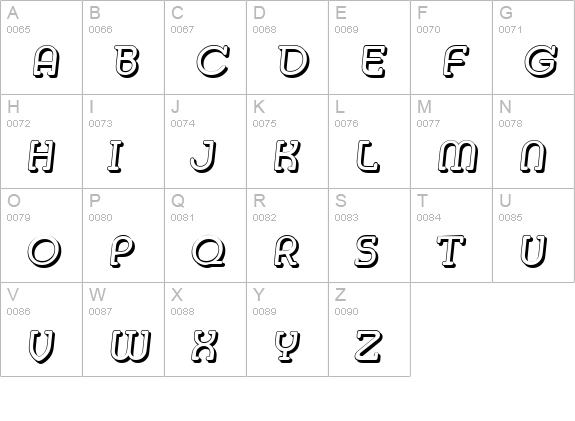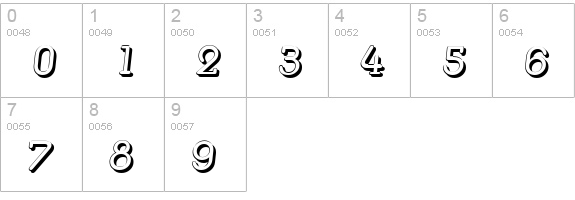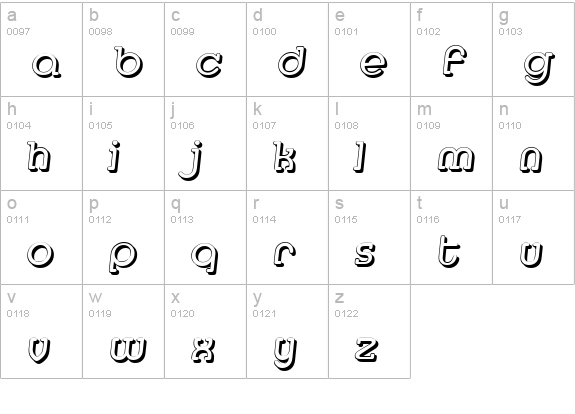
MexicoShadow-Italic Font Details
MexicoShadow-Italic is a distinctive, italic variant in the MexicoShadow typeface family \xE2\x80\x94 well suited to design and typography projects.
MexicoShadow-Italic is a stunning and elegant font that exudes a sense of mystery and sophistication. Its unique design features stylish, slanted letterforms with intricate shadow detailing, adding depth and dimension to any text. Perfect for adding a touch of drama to your projects, this font is versatile and can be used for a variety of design purposes. The MexicoShadow-Italic font is a must-have for designers looking to make a bold statement. Whether you're working on a branding project, a poster design, or a social media graphic, this font will surely capture the attention of your audience. Best of all, MexicoShadow-Italic is available for free download at FontsMarket.com. Don't miss out on the opportunity to enhance your designs with this striking and eye-catching font. Download MexicoShadow-Italic today and take your projects to the next level!